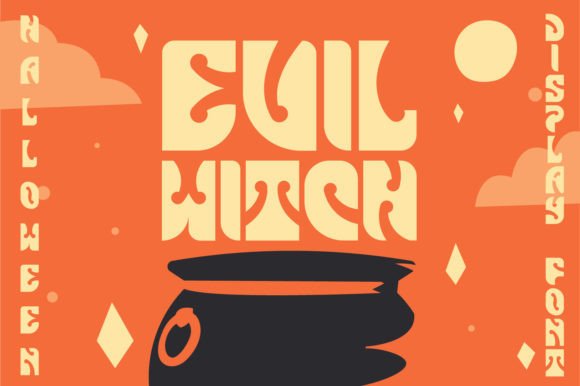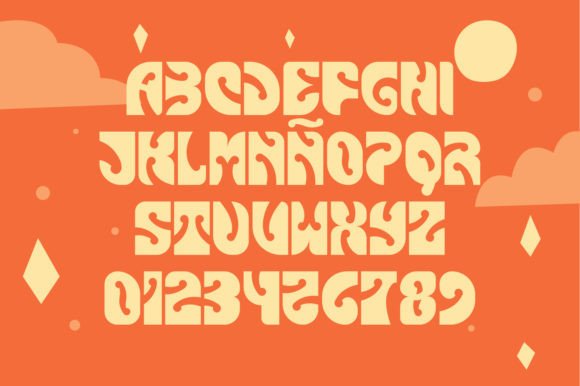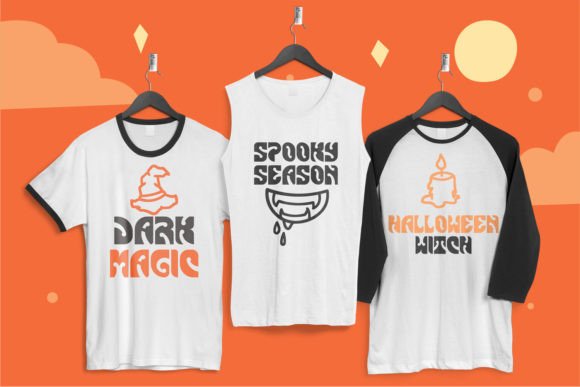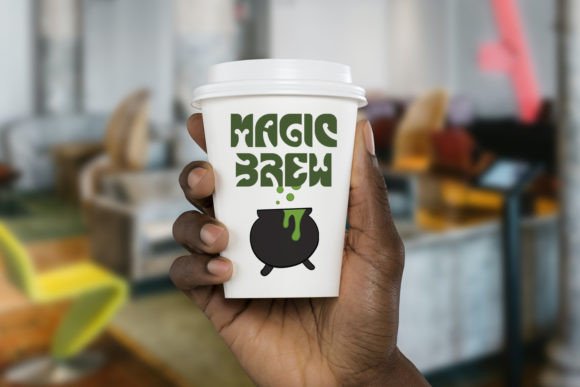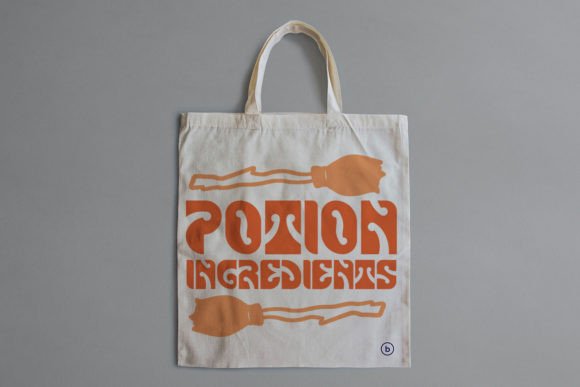
Evil Witch Font
The Evil Witch is a modern take on retro Halloween cartoon font styles. With this bold display font, you can bring all of your spooky creations to life with a retro feel. Perfect for Halloween cards, party flyers, labels, posters, decorations and so much more!